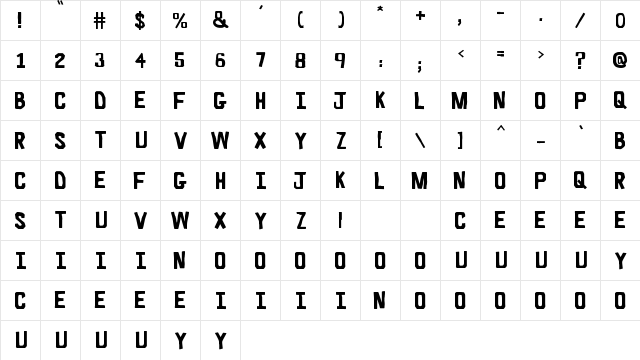
La Vie Boheme Regular
Design Context for La Vie Boheme Typeface
La Vie Boheme is a composed and adaptable typeface that performs quietly and consistently across a wide range of design contexts.